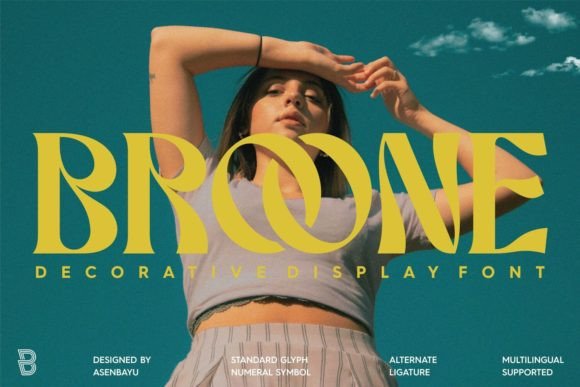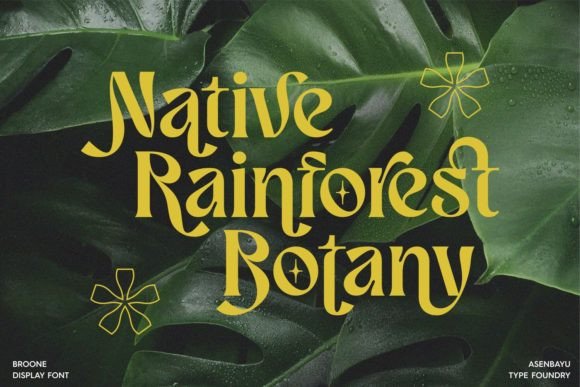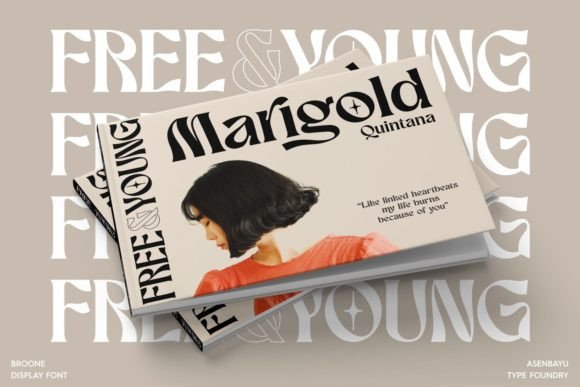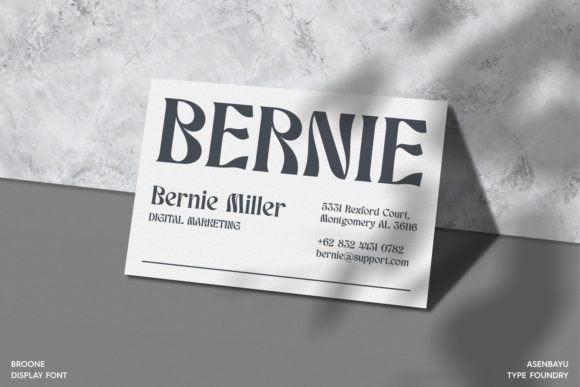
Broone Font: Retro Display Font for Unique Logo Design & Branding
About the Broone Font
Meet Broone Font, a stunning font that brings a touch of elegance and professionalism to any design. Broone is a stunning versatile decorative display font. The proportion of wavy shapes with serif outlines can add a youthful and natural touch to any design project. You can use this font in modern and retro designs. This font is suitable for attractive packaging label designs, unique desired logos, poster designs, fashion and much more.
Broone’s playful yet sophisticated personality makes it ideal for headlines, logos, short-form text on packaging, and posters requiring a touch of vintage charm. It excels in projects emphasizing a youthful, modern aesthetic with a hint of retro flair—think fashion brands, artisanal food products, or event promotions. Avoid using Broone for body text or lengthy paragraphs; its decorative nature compromises readability in extended use.
Pairing Broone effectively requires considering its inherent energy. A clean sans-serif like Montserrat or a geometric sans-serif like Futura provides a strong contrast, grounding Broone’s playful curves. For a warmer feel, a classic serif such as Garamond or a more modern serif like Playfair Display offers a sophisticated counterpoint.
For a truly unique look, consider a simple script font for secondary text elements, ensuring visual harmony. Avoid pairing it with other highly decorative fonts, which would create visual clutter and diminish Broone’s impact.
Broone Font Usage Examples
Broone Font Example